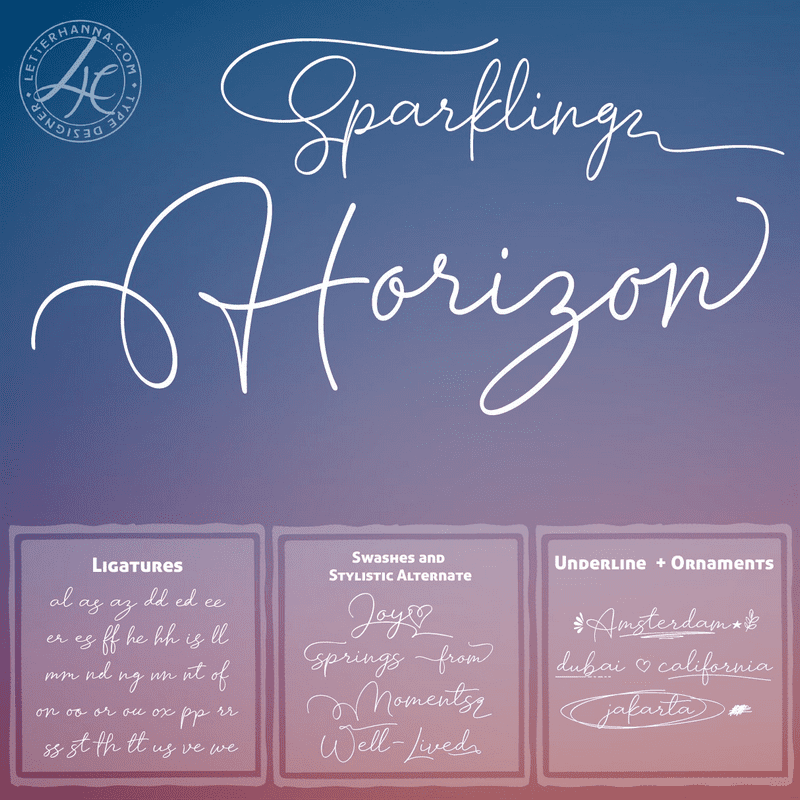
Font name: | Sparkling Horizon |
Author: | Letterhanna Type Foundry |
Note by Letterhanna Type Foundry | |
Introducing "Sparkling Horizon" � a mesmerizing handwritten font that captures the essence of boundless creativity and shimmering elegance. With every stroke, this font evokes the sensation of glistening sunlight on the horizon, infusing your designs with a touch of radiant charm. Whether used for invitations, logos, or creative projects, "Sparkling Horizon" brings a sense of enchantment to your words. Let your imagination take flight as you create with this font, where each character sparkles like a unique star on the canvas of your design journey. THIS FONT is Free for personal, Paid for commercial use By installing or using this font, you are hereby agree to this Product Usage Agreement: 1. This font is ONLY FOR PERSONAL USE 2. You are REQUIRES A LICENSE for PROMOTIONAL or COMMERCIAL USE 3. You cannot redistribute fonts because copyright is still with us. 4. You may not open, edit, or modify this font 5. For more information about movie license, broadcast license, and corporate license, please contact us. ##### Please be aware that this font is free for personal use only. No promotional or commercial use allowed! You require a license for promotional or commercial use. With only $19 You can purchase the basic desktop license in my shop here: http://letterhanna.com If you enjoy this font, any donation are very appreciated. https://paypal.me/aldohsb For detail basic font license please read https://letterhanna.com/license/ More... |